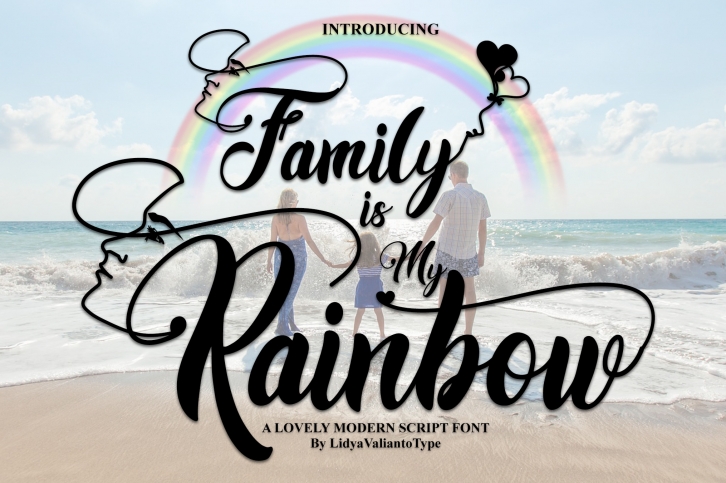
Family is My Rainbow is a stunning handwritten font that will make your work stand out through its elegant and curvy lines. It is perfect for product packaging, branding project, magazine covers, social media, wedding, or just used to express words above the background. This font is PUA encoded which means you can access all of the glyphs and swashes with ease!